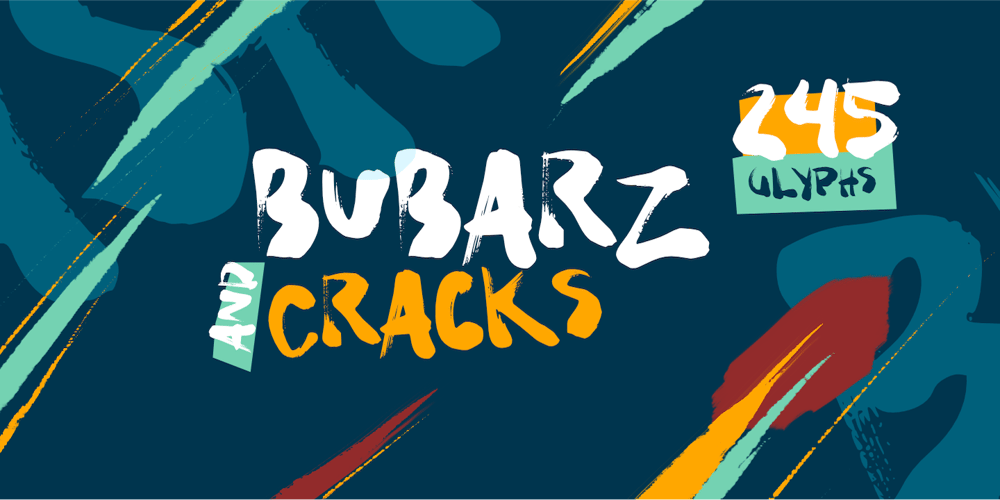
Bubarz Font Family was designed by Wahyu Eka Prasetya, Afiat Sukmaraga and published by Hati. Bubarz contains 2 styles and family package options. Try this font. This is new ink brush font with splatters involves a blend of artistry and design that captures the dynamic and fluid nature of ink. This typeface is characterized by its raw, organic strokes and splashes, evoking a sense of spontaneity and energy. Each character is meticulously crafted to reflect the unpredictability and boldness of ink brush techniques, resulting in a font that feels both natural and expressive.